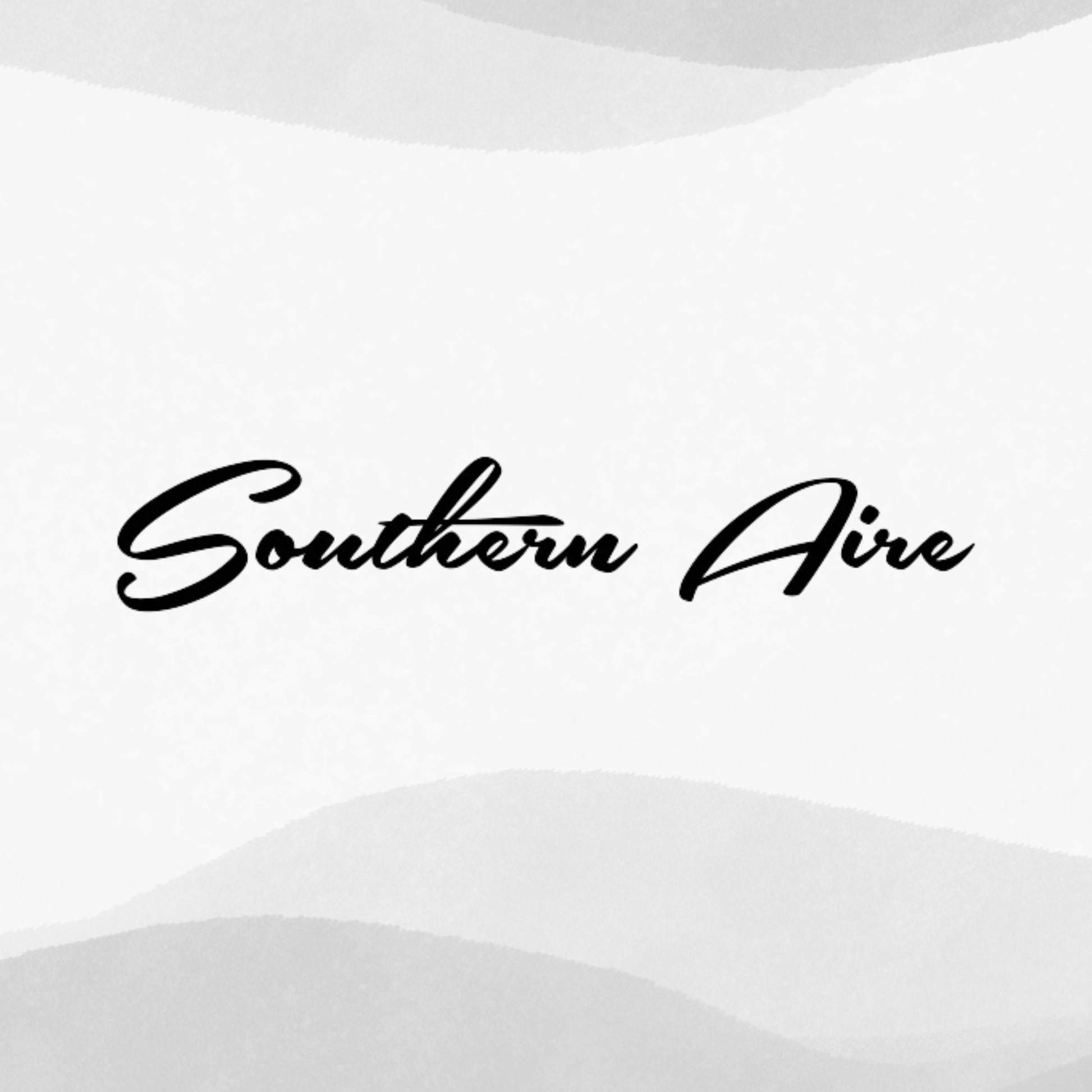
Southern Aire: Font
Introducing "Southern Aire", a beautifully crafted thick cursive font with a modern touch, available exclusively for personal use. Brought to you by the creative minds at mansgreback.com, this script font is the perfect addition to elevate your personal projects with its elegant and dynamic style.
Embrace Elegance and Modernity with Southern Aire
"Southern Aire" combines the charm of traditional cursive handwriting with contemporary flair, making it versatile for a wide range of personal projects. Whether you're designing invitations, creating unique artwork, or adding a personal touch to your digital content, "Southern Aire" brings a unique blend of sophistication and modern elegance to your creations.
Key Features:
- Thick Cursive Script: Its bold and flowing design stands out in any context, from digital designs to printed materials.
- Modern Touch: While deeply rooted in traditional cursive aesthetics, "Southern Aire" incorporates modern elements that make it suitable for today's design needs.